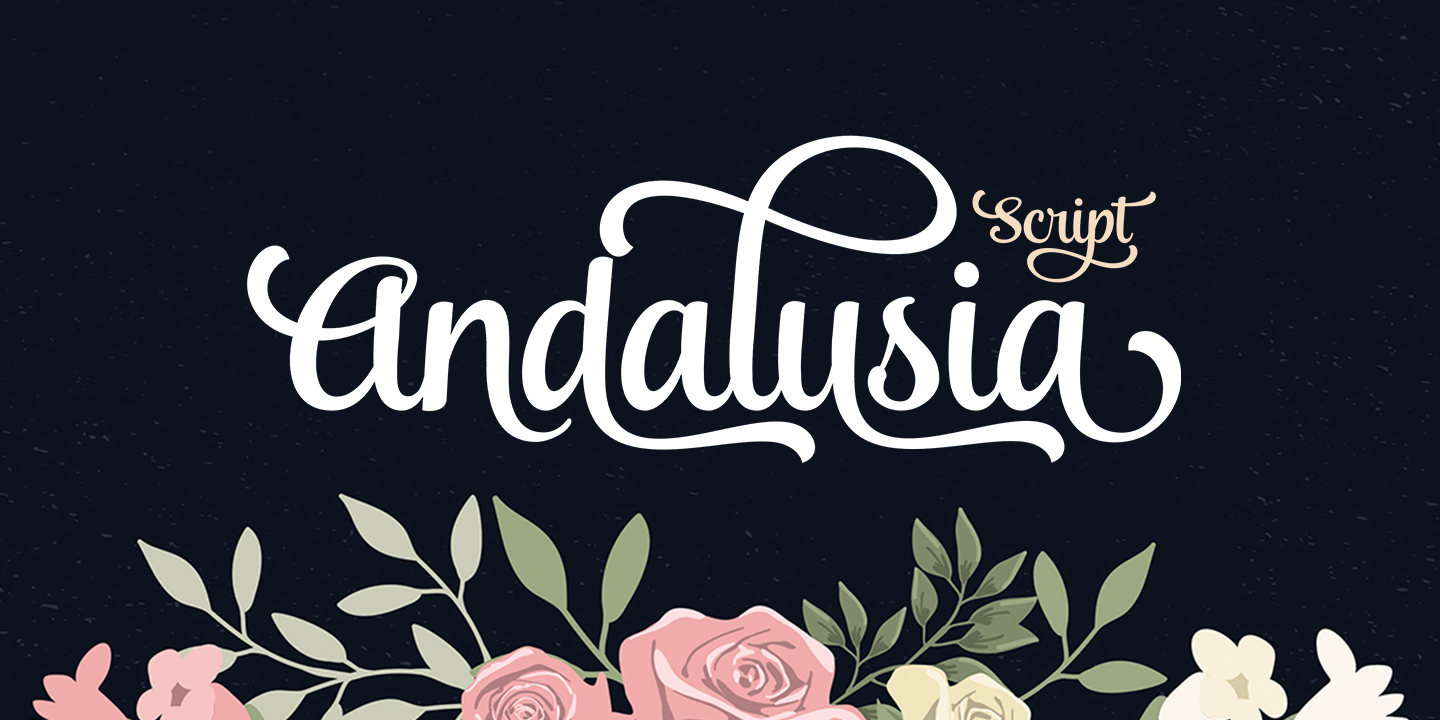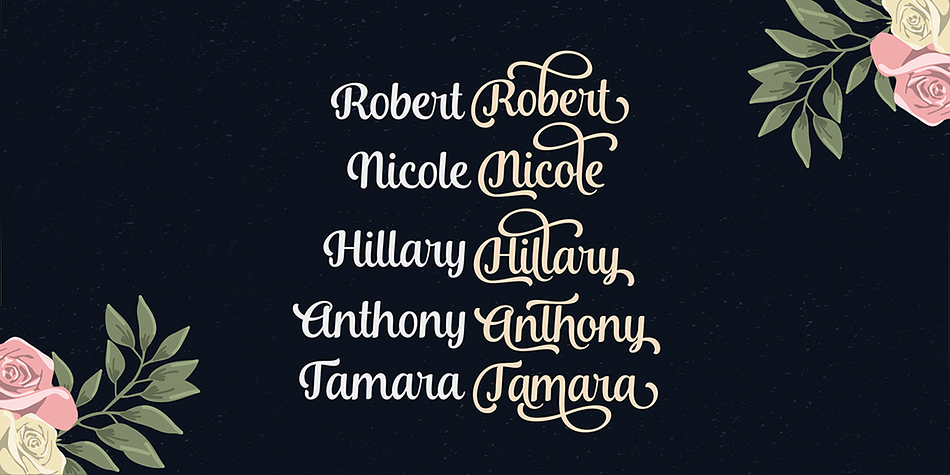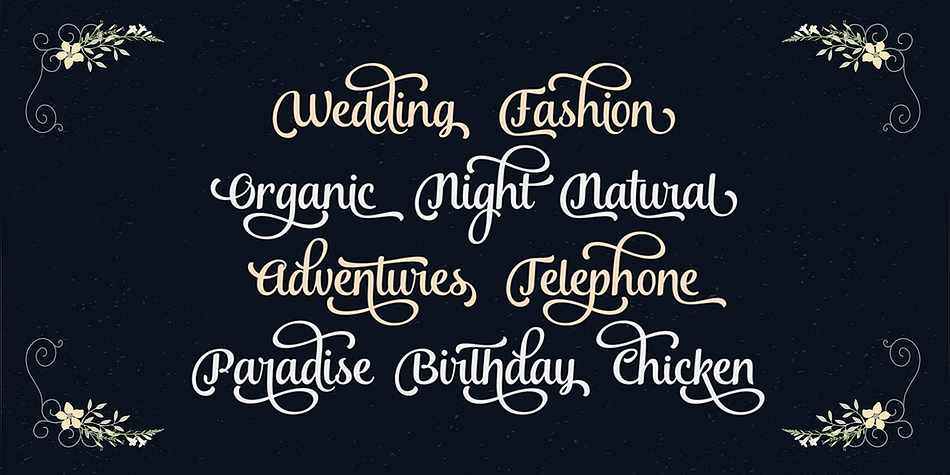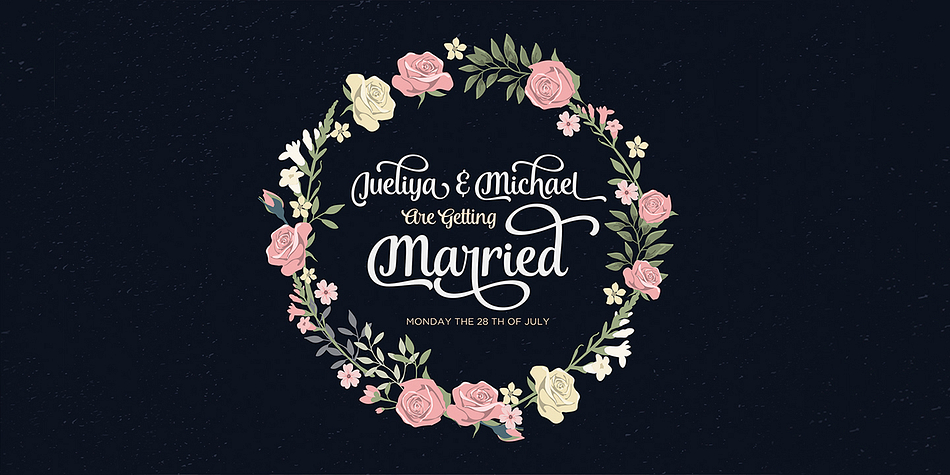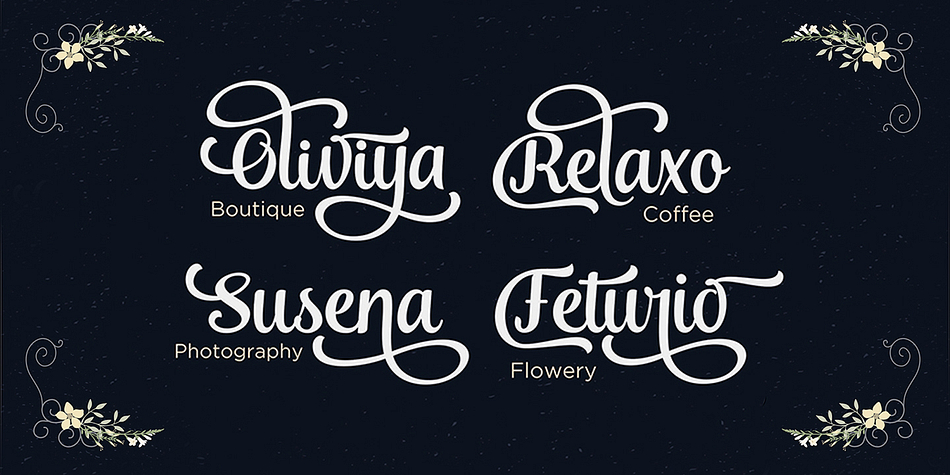
Andalusia is a brush script font published by Seniors Studio.
Andalusia is a romantic typefaces. bold, elegant & fun vintage script font. Can be used for various purposes.such as logos, wedding invitation, t-shirt, letterhead, signage, news, posters, badges etc.
Andalusia Script features 423+ glyphs and 160 alternate characters, ligatures, swash and multiple language support.